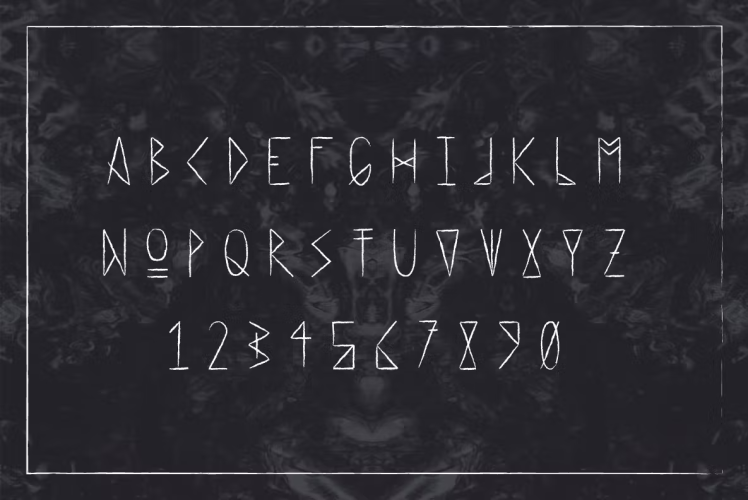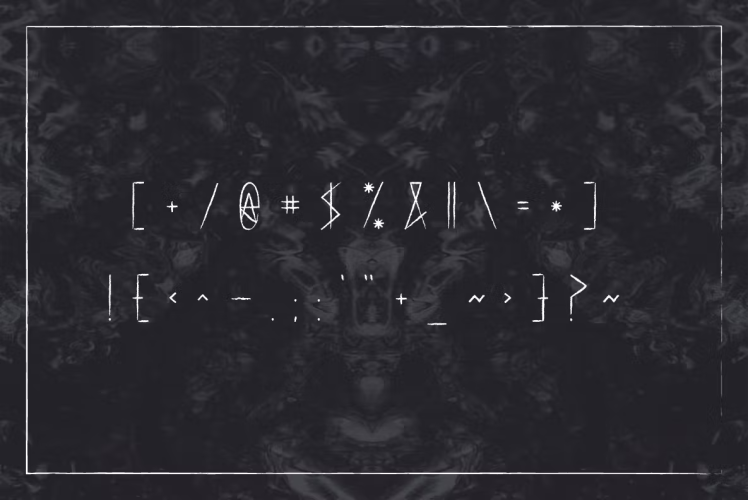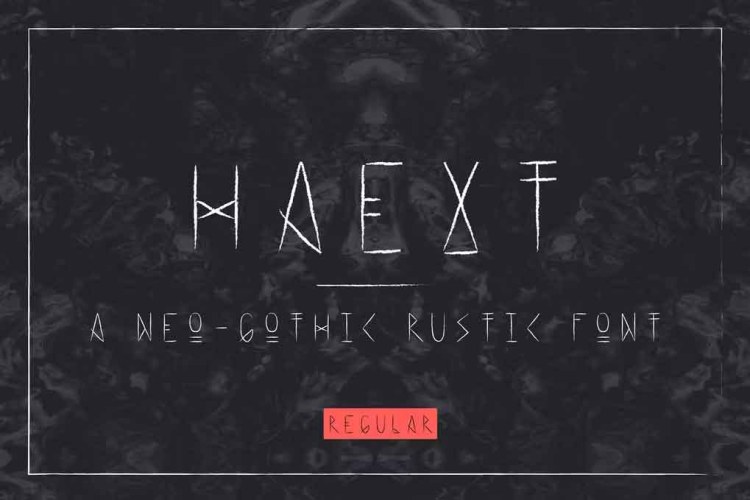
Haext Regular Font
Haext is neo-Goth rustic Art Nouveau, part rune part craftsman, this font expresses something different depending on how it’s applied–pair it with black and white or col…
Haext is neo-Goth rustic Art Nouveau, part rune part craftsman, this font expresses something different depending on how it’s applied–pair it with black and white or color. Font is sold as an OTF file.
Where Haext Regular Font works best
Seasonal campaigns
Haext Regular Font gives a holiday or themed promotion its own look without redrawing anything; use it for the headline only.
Party and family invitations
Decorative letters set the mood before the text is read. Pair Haext Regular Font with a plain sans for the practical details.
Game and video titles
Themed lettering sells the world of a game or a channel in one frame.
What kind of work does Haext Regular Font suit?